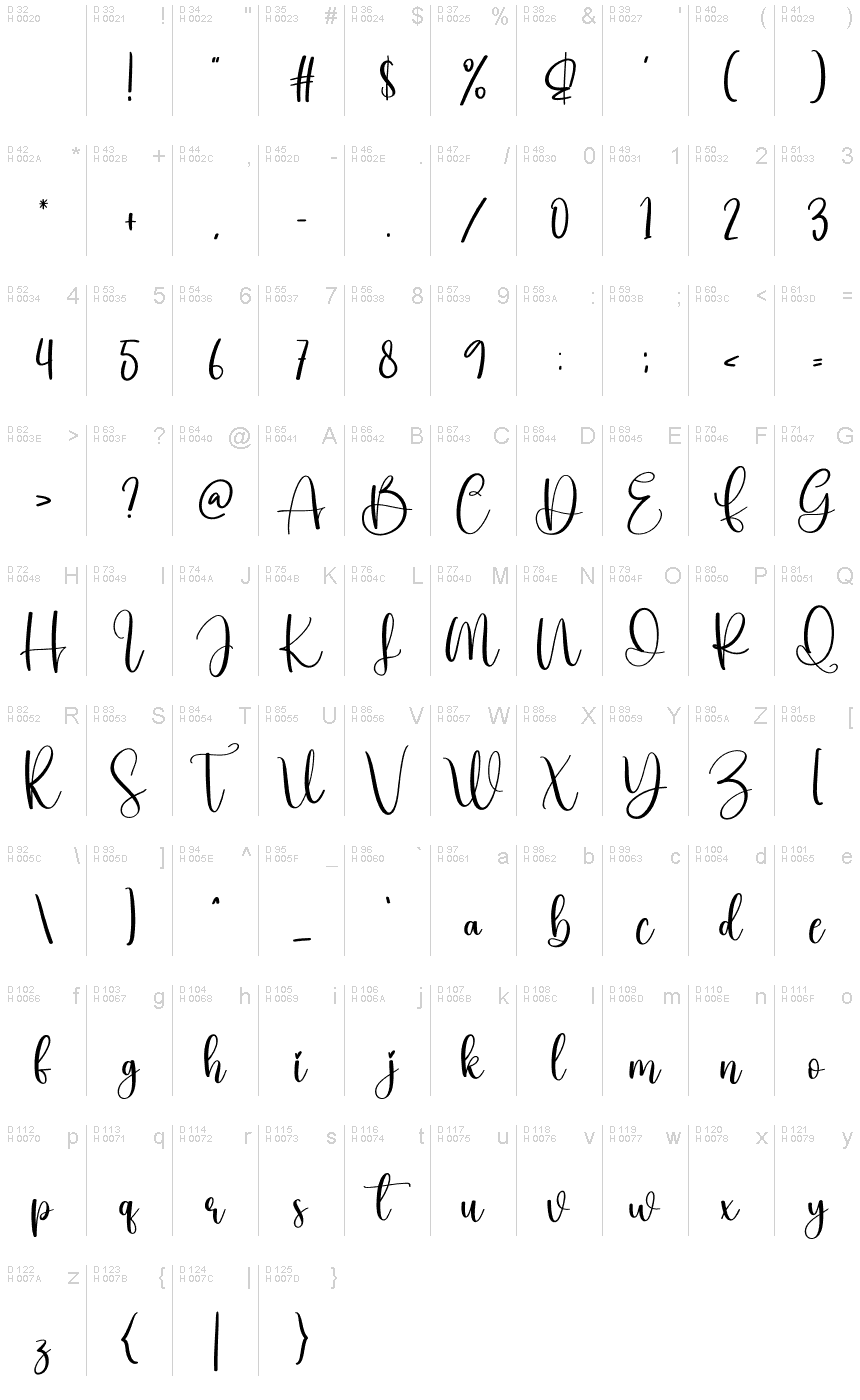
Perfect
Perfect, designed by Scratchones, is a calligraphy font that exudes elegance with its semi-light weight and flowing lines. This typeface stands out for its aesthetic grace and the personalized touch that mimics hand-lettered artistry.
The delicate yet legible strokes make Perfect an exceptional choice for invitations, branding, and creative projects where a touch of sophistication is desired. Its versatility allows it to be both modern and timeless, ensuring that your designs will leave a lasting impression with their refined beauty.